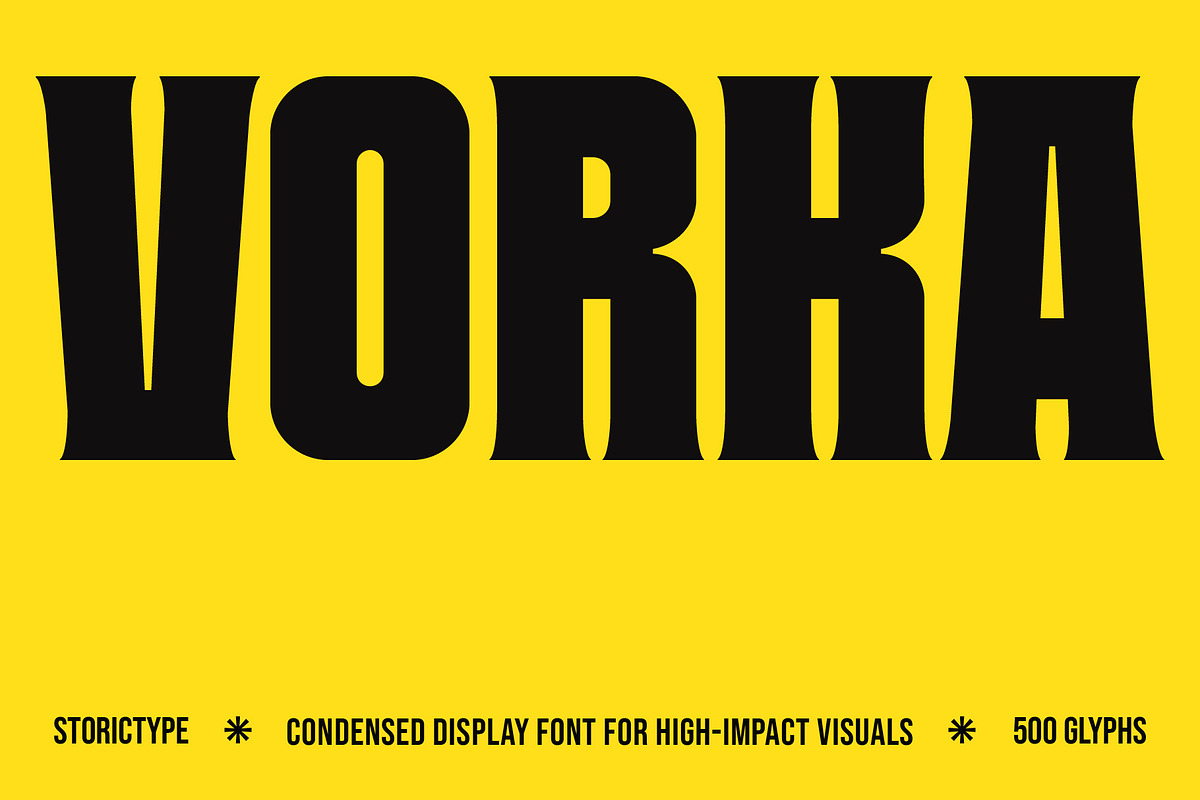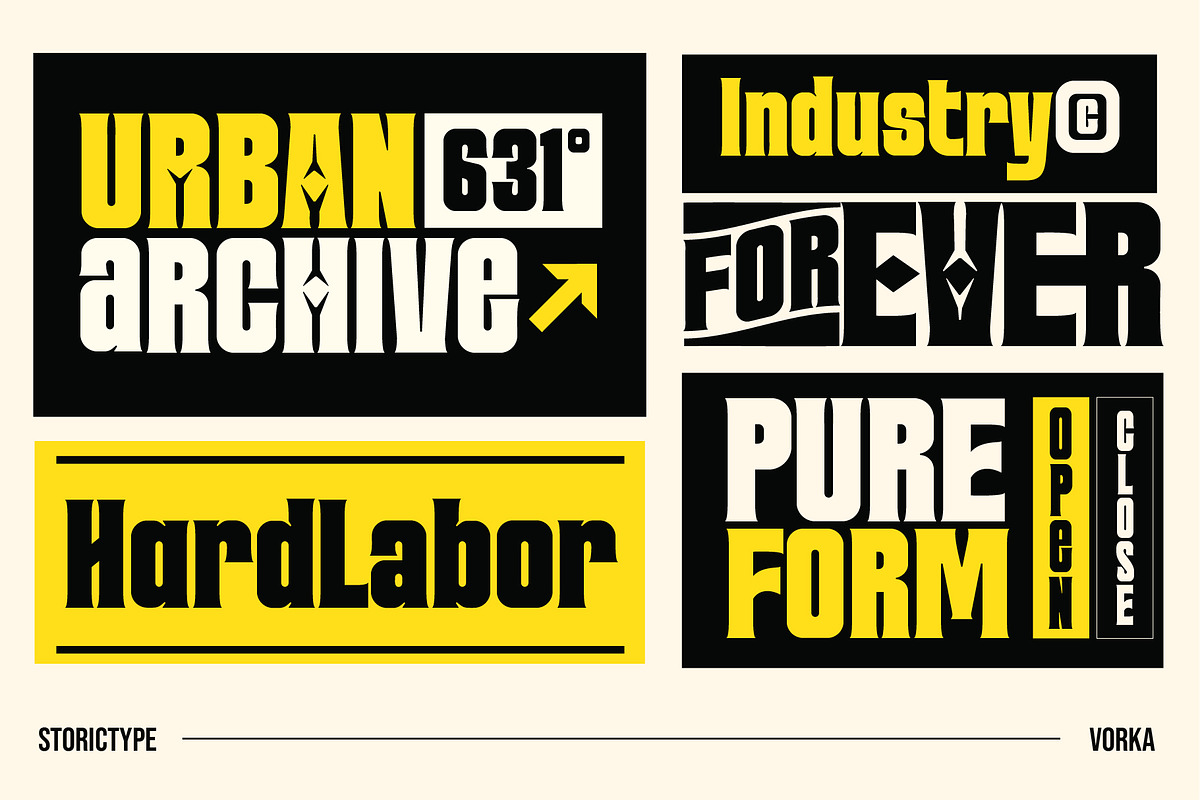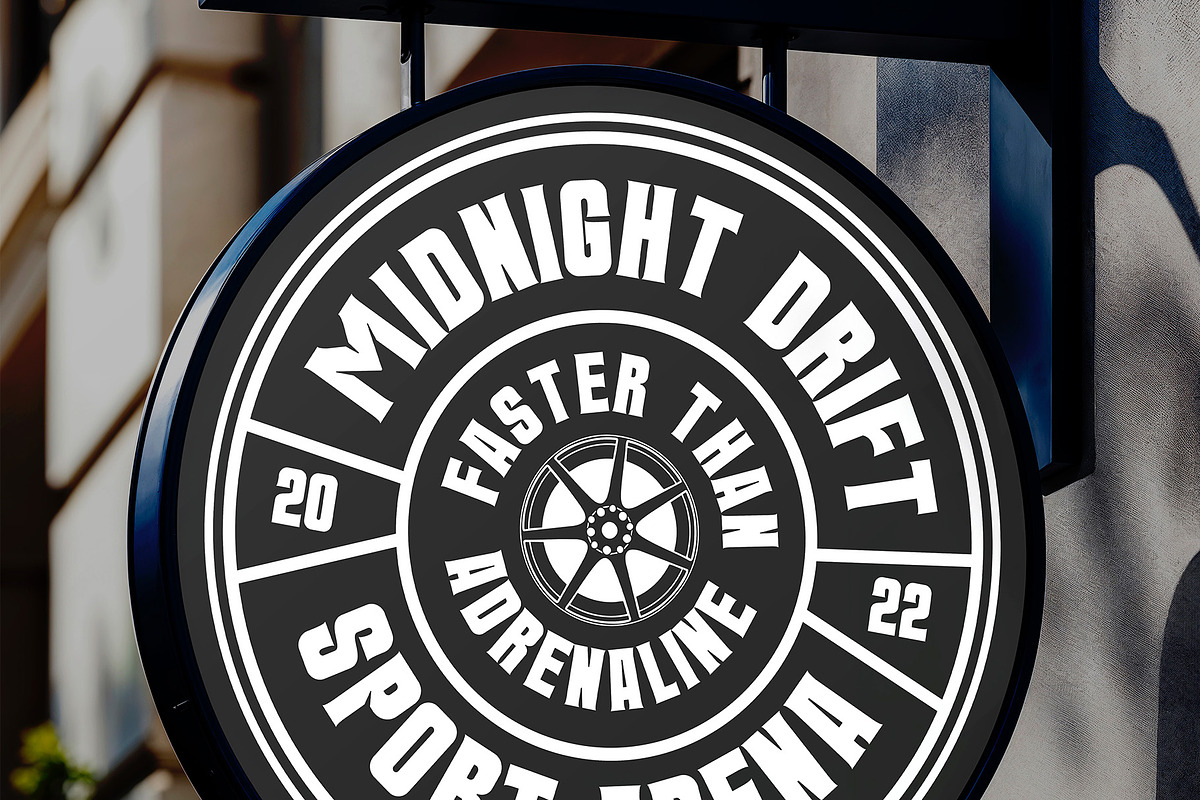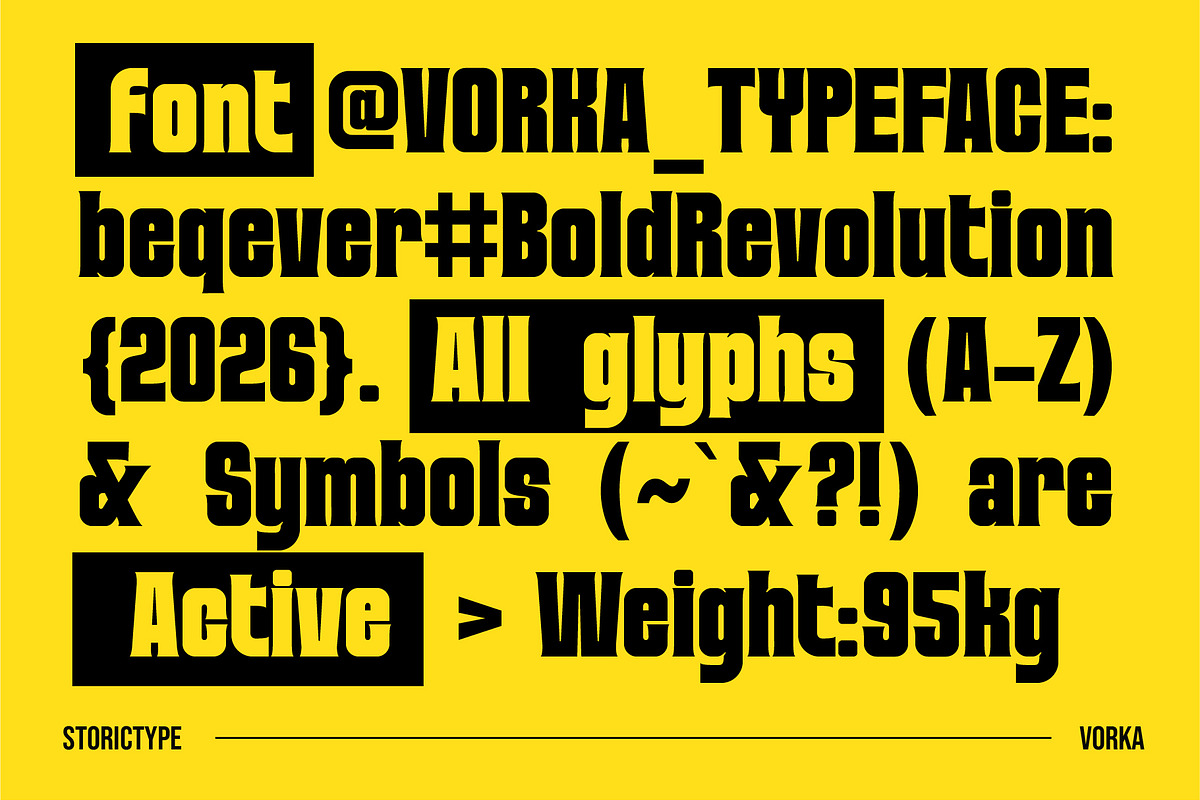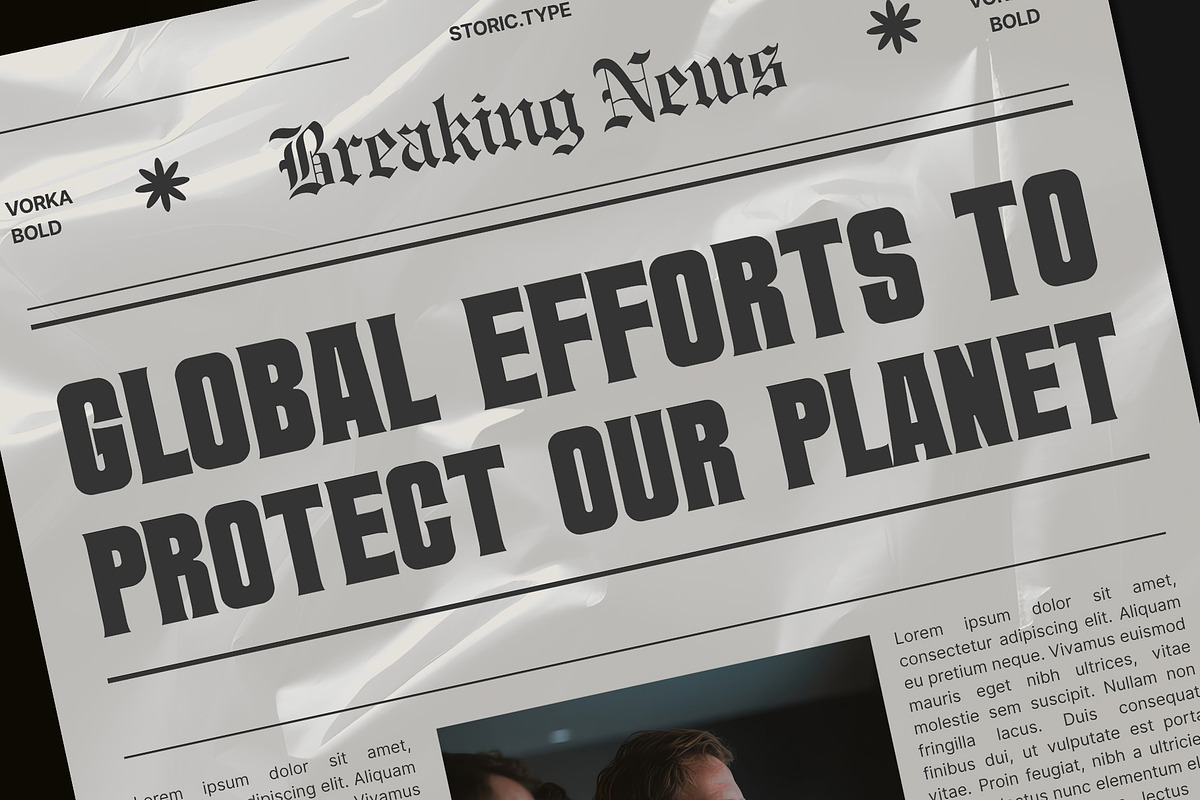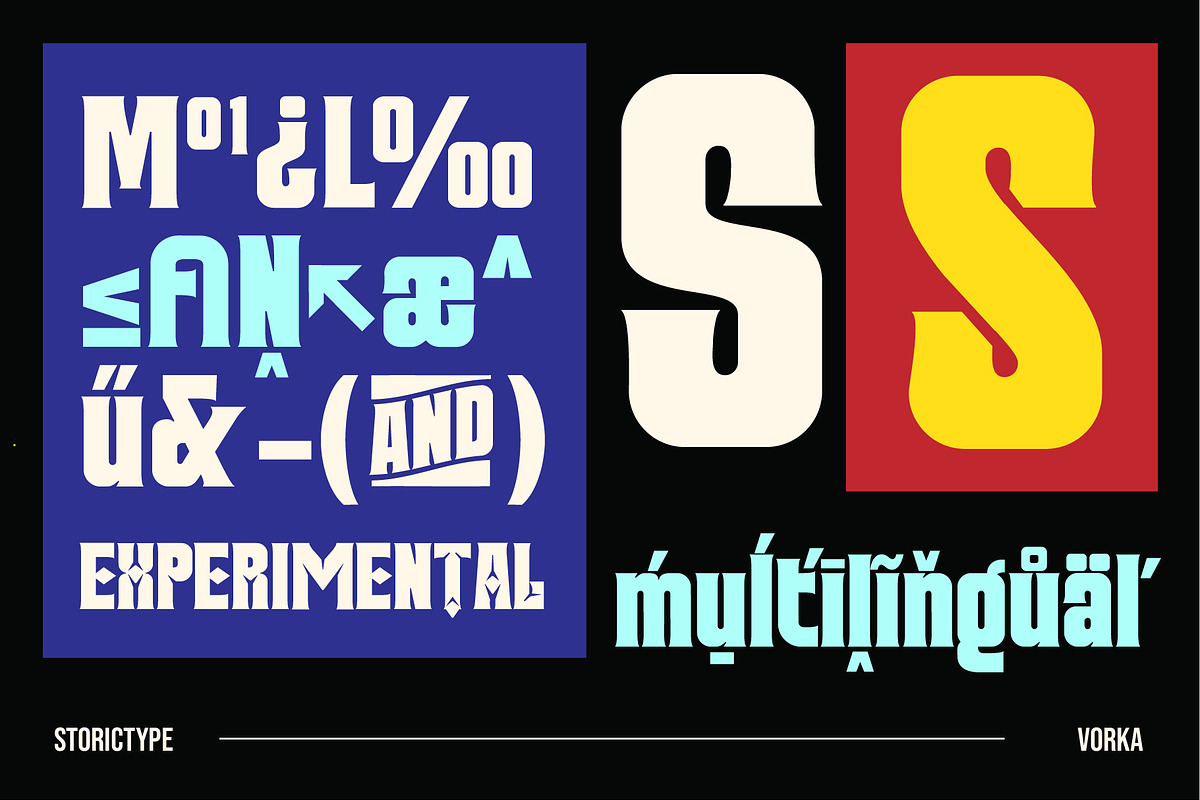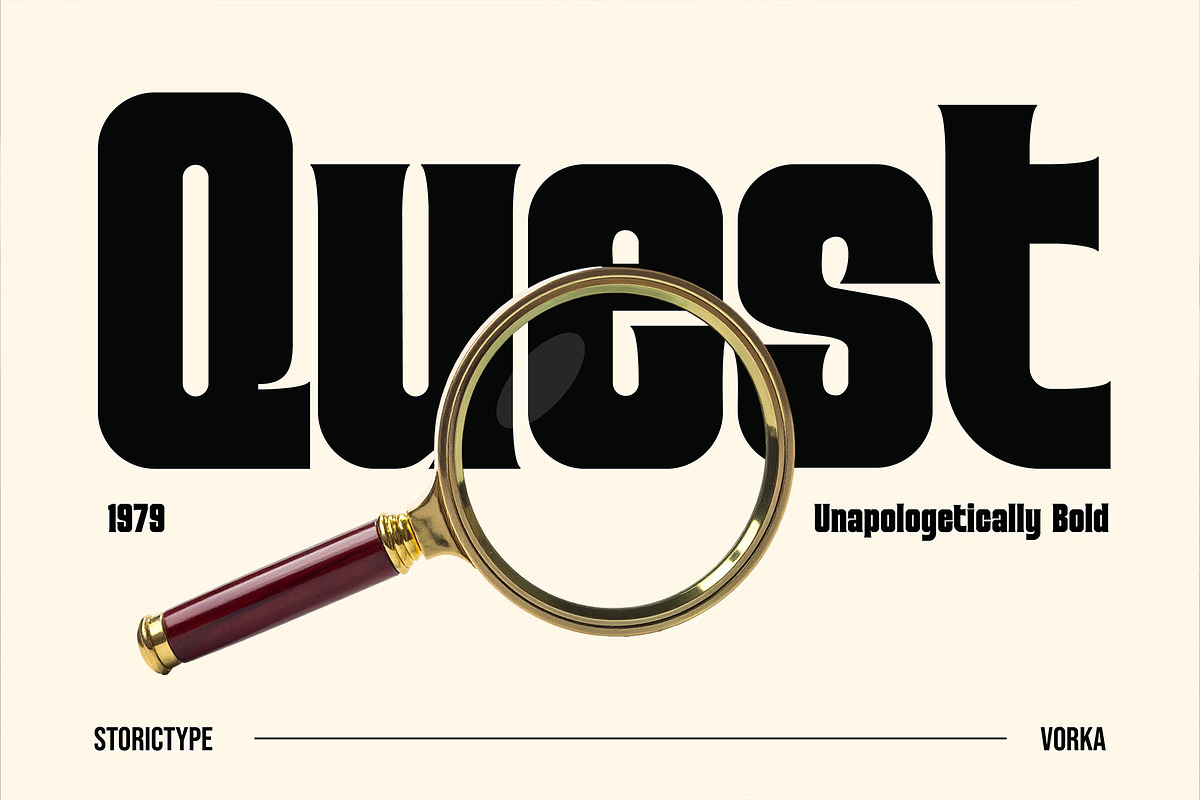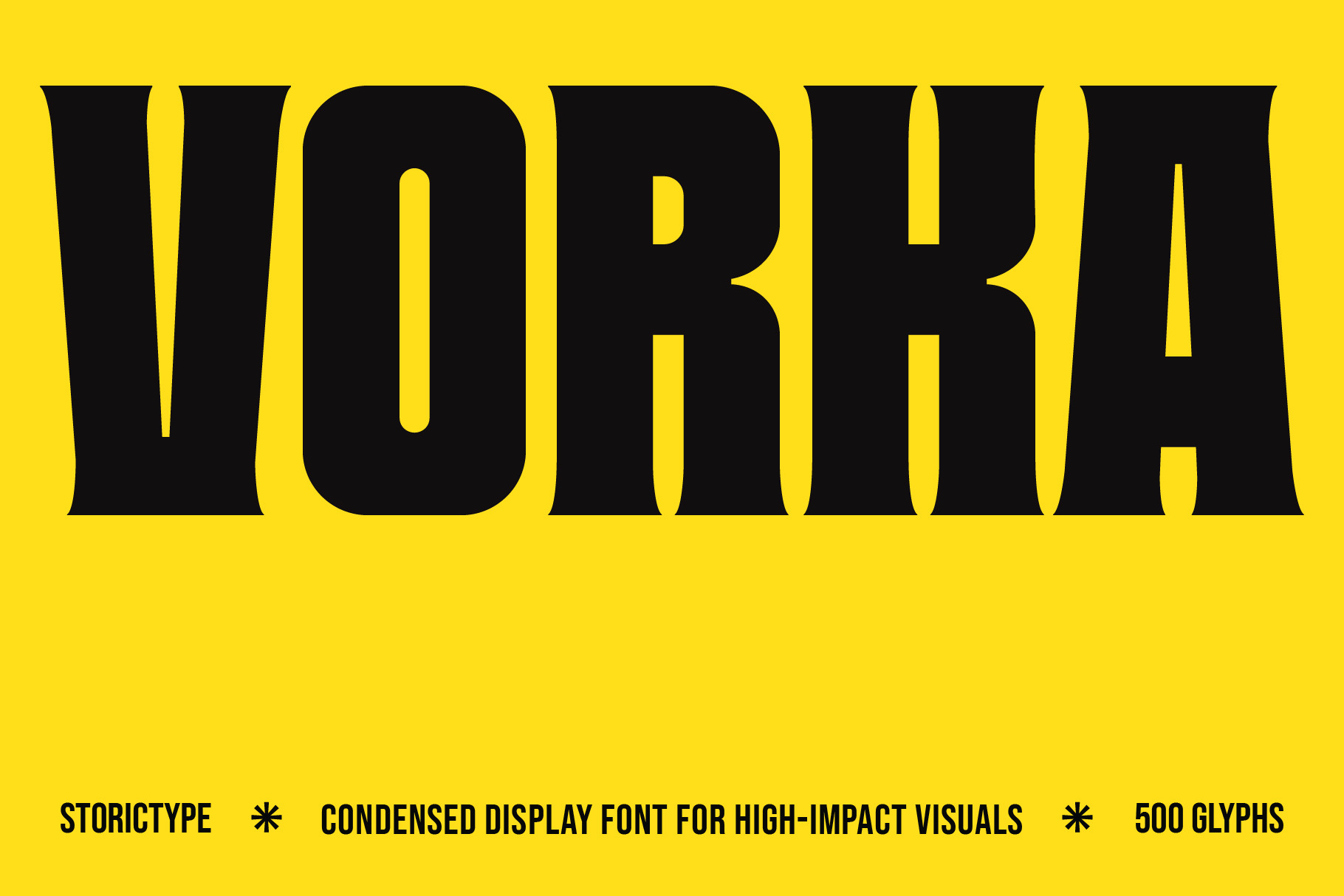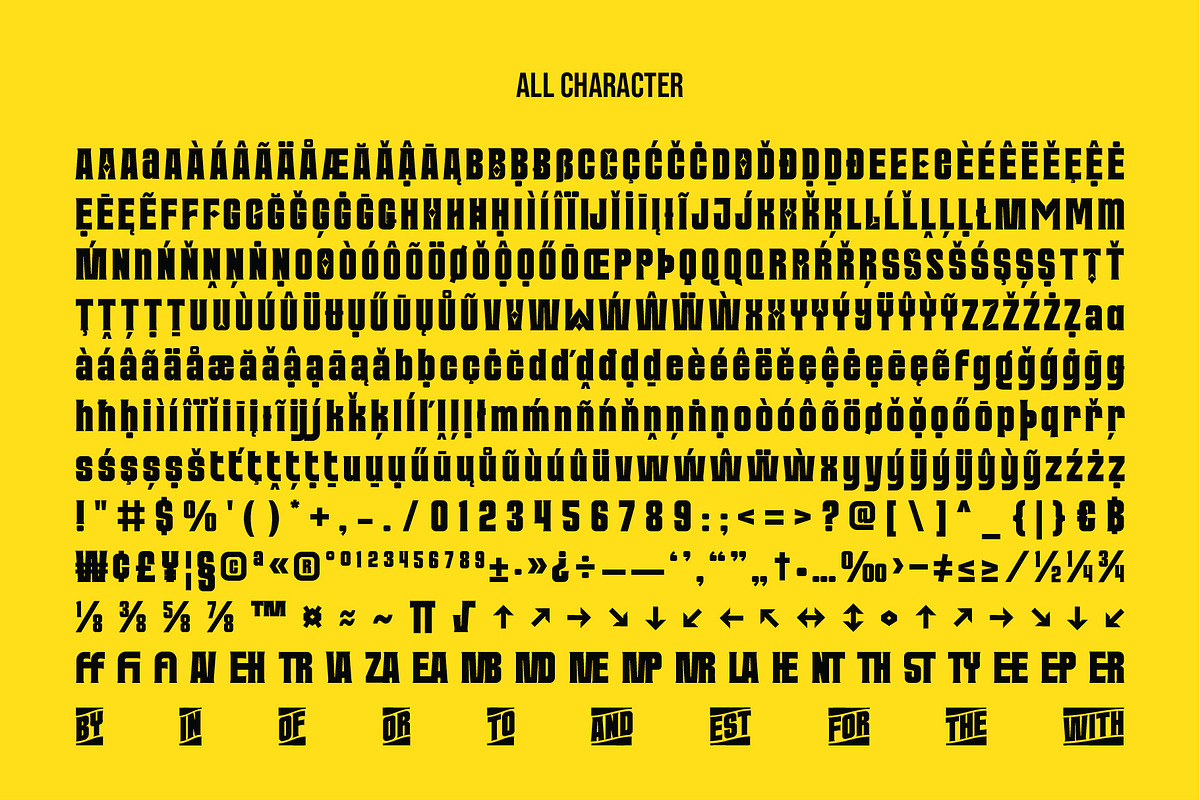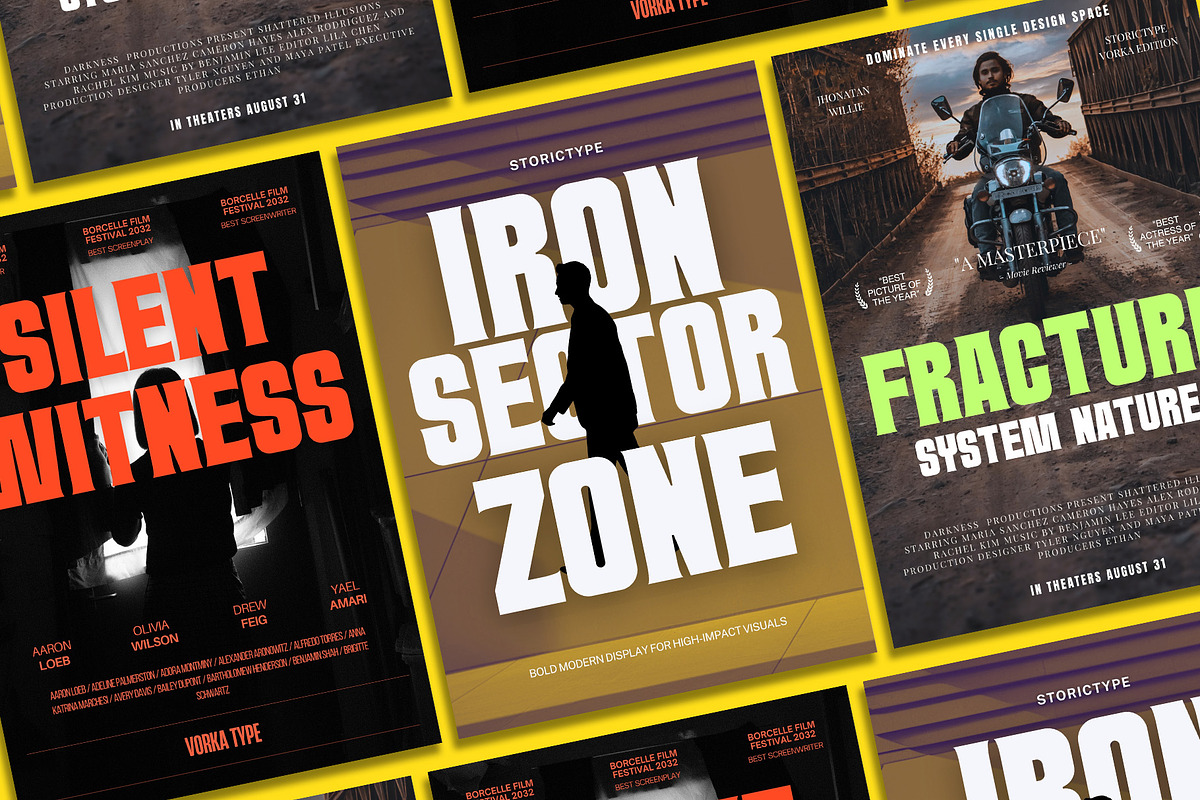
VORKA - Headline Display Typeface
Vorka is a Condensed Bold Display typeface Inspired by the raw aesthetics of industrial design and the structural boldness of Brutalist architecture, Vorka brings a commanding presence to any visual canvas.
With its thick, solid strokes and sharp geometric precision, this font is engineered for maximum impact. Whether you are designing high-end streetwear branding, cinematic movie posters, aggressive editorial layouts, or futuristic digital interfaces, Vorka provides the visual weight needed to capture attention instantly.
Ideal For:
Branding & Logos: Create a memorable and strong brand identity.
Editorial Design: Perfect for bold headlines and standout pull-quotes.
Apparel & Streetwear: Gives a "raw" and "edgy" vibe to merchandise.
Digital Media: High-impact thumbnails, social media banners, and UI titles.
Motion Graphics: Large-scale typography that moves with authority.
Distinctive Character: A unique blend of condensed forms and wide-reaching impact.
Full Glyphs Set: Includes Uppercase, Lowercase, Numbers, and a comprehensive range of Punctuation. (total 500 gylphs )
Multilingual Support: Ready for global reach with support for Western, Central, and South-Eastern European languages.
Optimized Kerning: Meticulously spaced for a balanced look, even in tight headings.